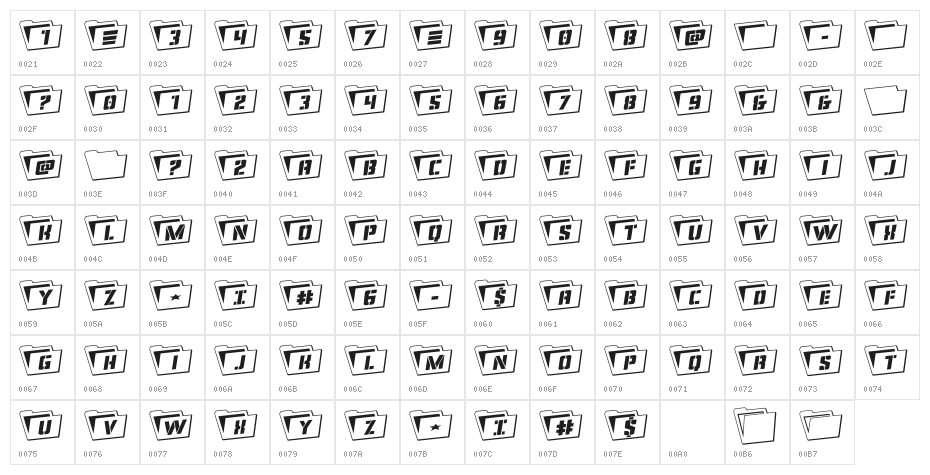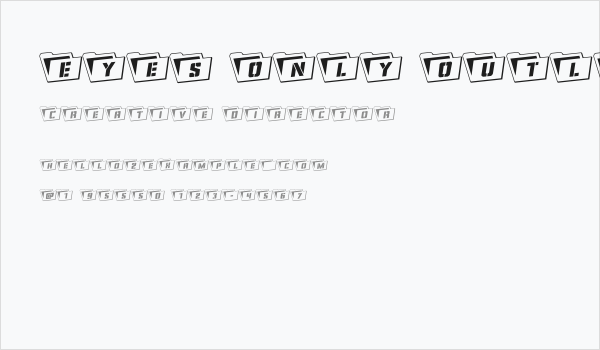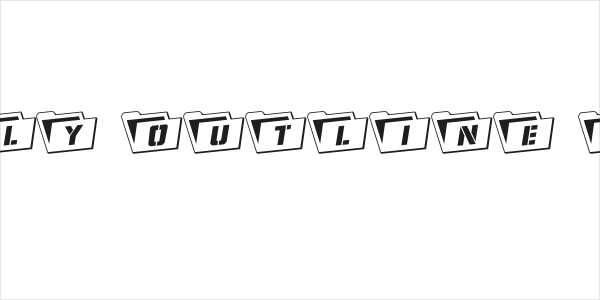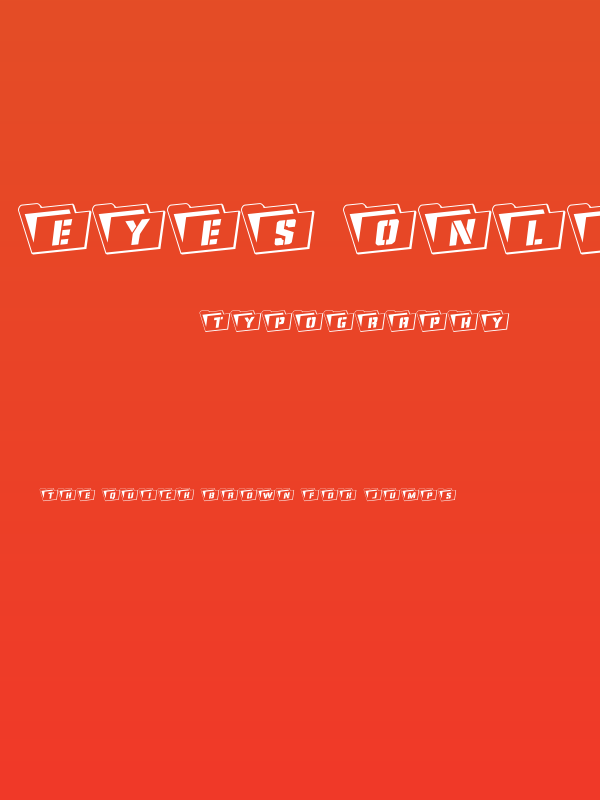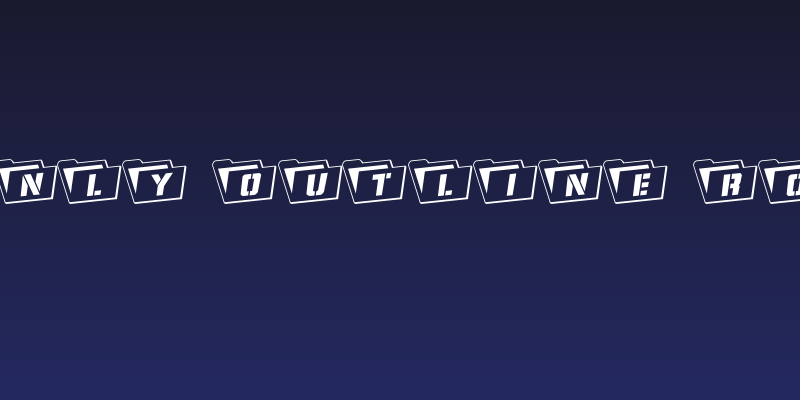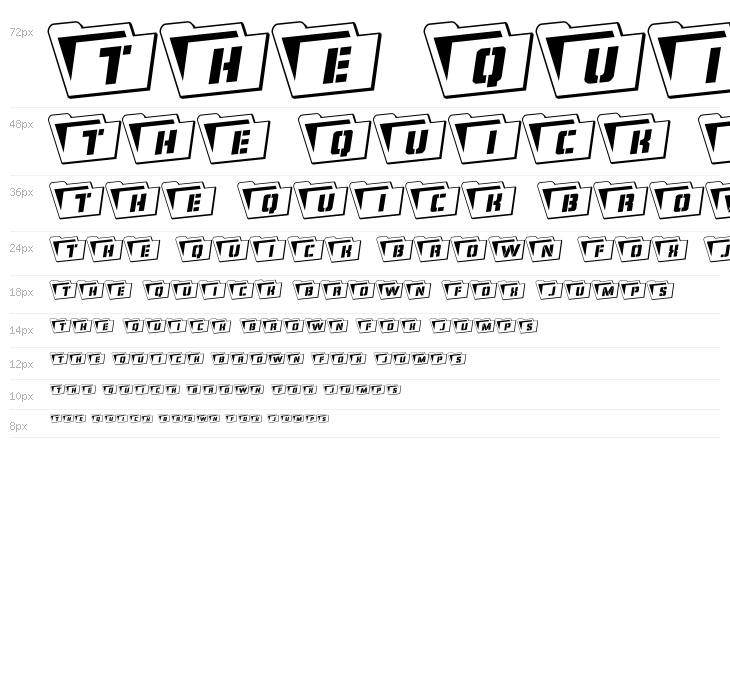
Eyes Only Outline Rotated Font
Eyes Only Outline Rotated Description
This font features a bold, three-dimensional style with a distinct outline that gives each character a shadowed, rotated appearance. The letters and numbers are enclosed in a box-like shape, creating a unique and eye-catching effect. The design is highly decorative, making it suitable for projects that require a strong visual impact. The characters are evenly spaced, ensuring readability despite the complex design. This font is ideal for creative and modern applications where a standout typeface is needed.